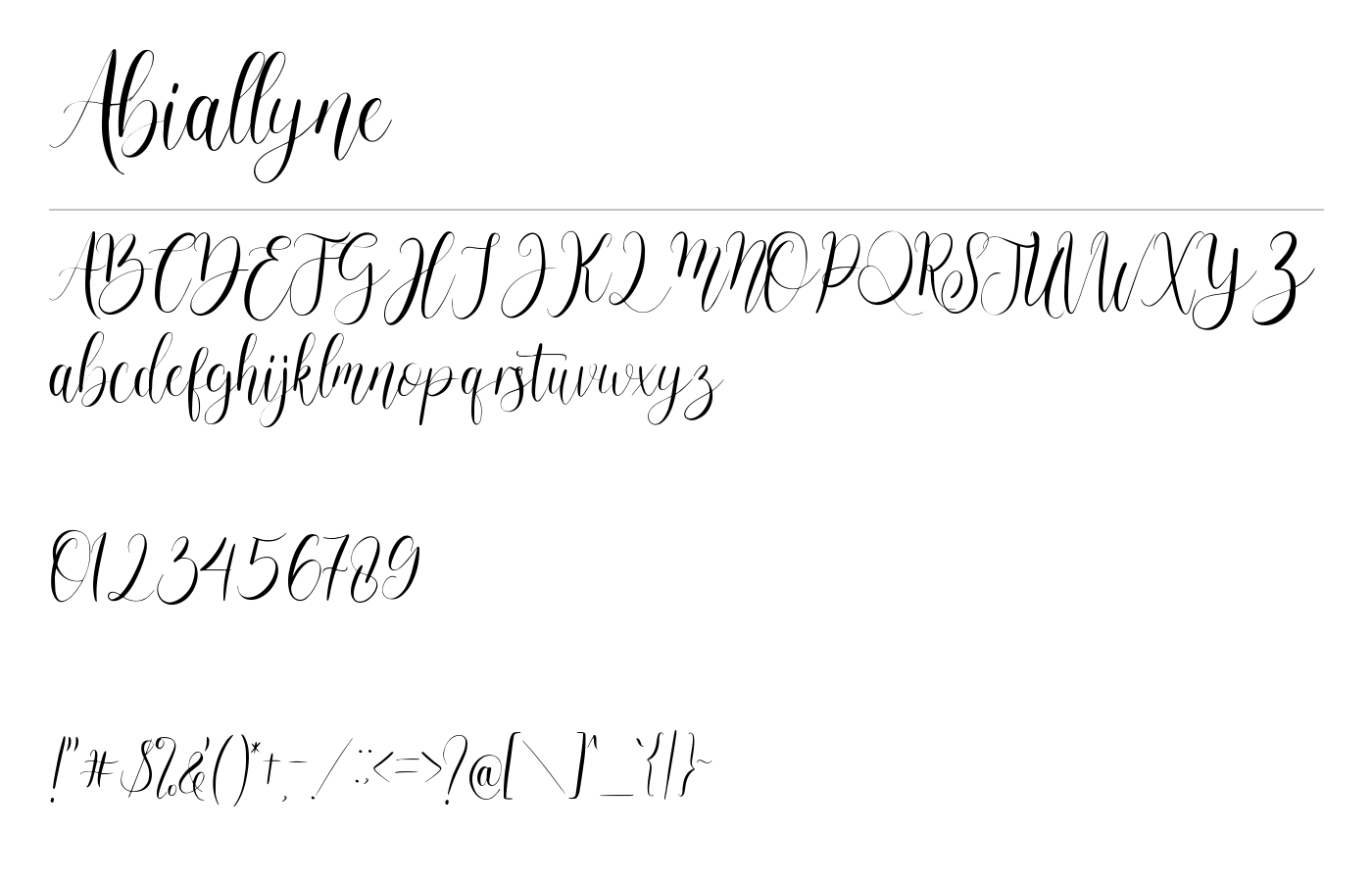
Abiallyne is a graceful script font featuring elegant, flowing letterforms with high contrast between thick and thin strokes that evoke a refined, sophisticated feel. Its delicate and stylish curves make it perfect for luxury branding, wedding invitations, and upscale editorial projects where a touch of classic beauty and femininity is desired. This font works best in large sizes for headlines or logos to showcase its intricate details and artistic flair.
Abiallyne Font
About Abiallyne Font